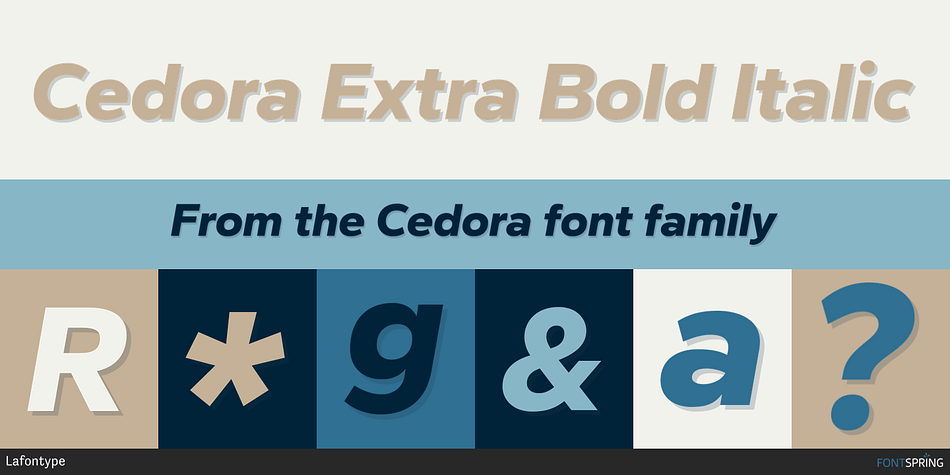
Cedora Extra Bold Italic
Designed by Anugrah Pasau, Cedora is a sans serif font family. This typeface has fourteen styles and was published by Lafontype.
Cedora is a humanist sans-serif typeface designed with a playful appearance.
Cedora comes in 14 styles, with 7 weights ranging from thin to black, each of which supports multiple languages, making it suitable for editorial activities.
In the terminal section, the size has been adjusted to be slightly thinner, preventing the shapes from appearing too sharp. The x-height and open counter have also been considered to ensure readability at small text sizes.